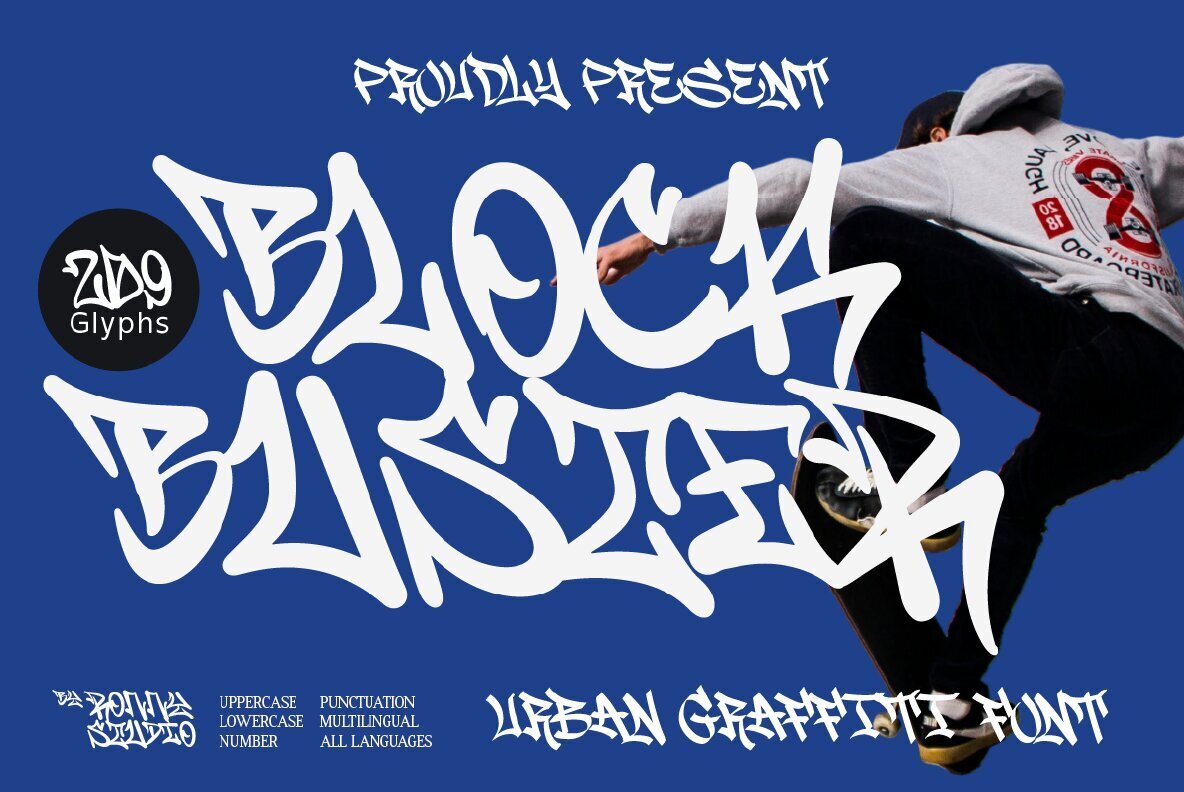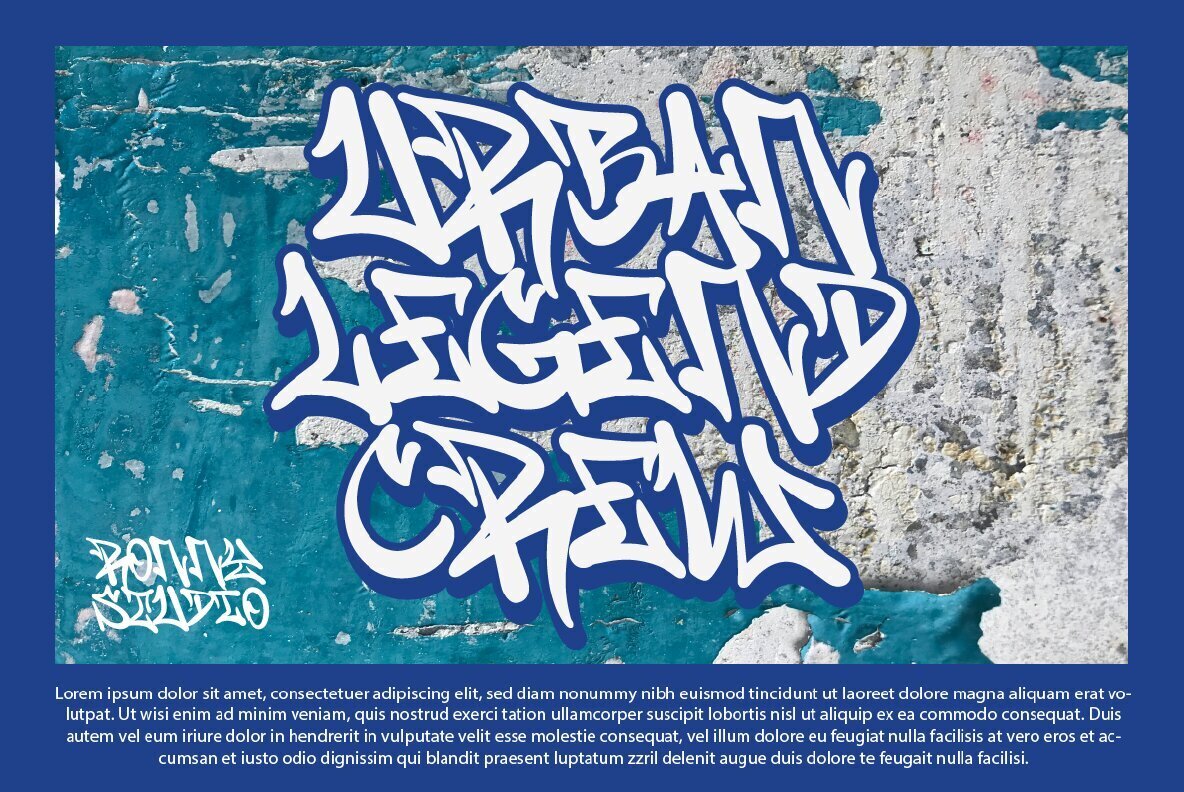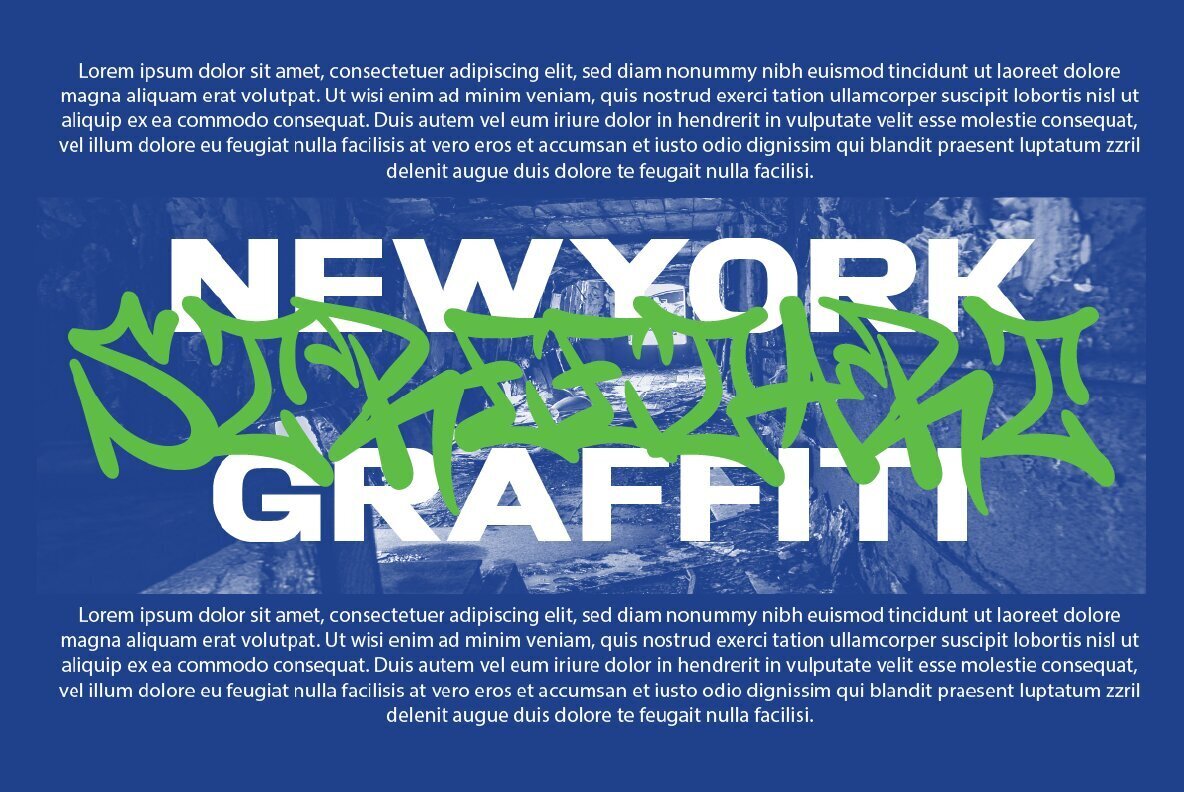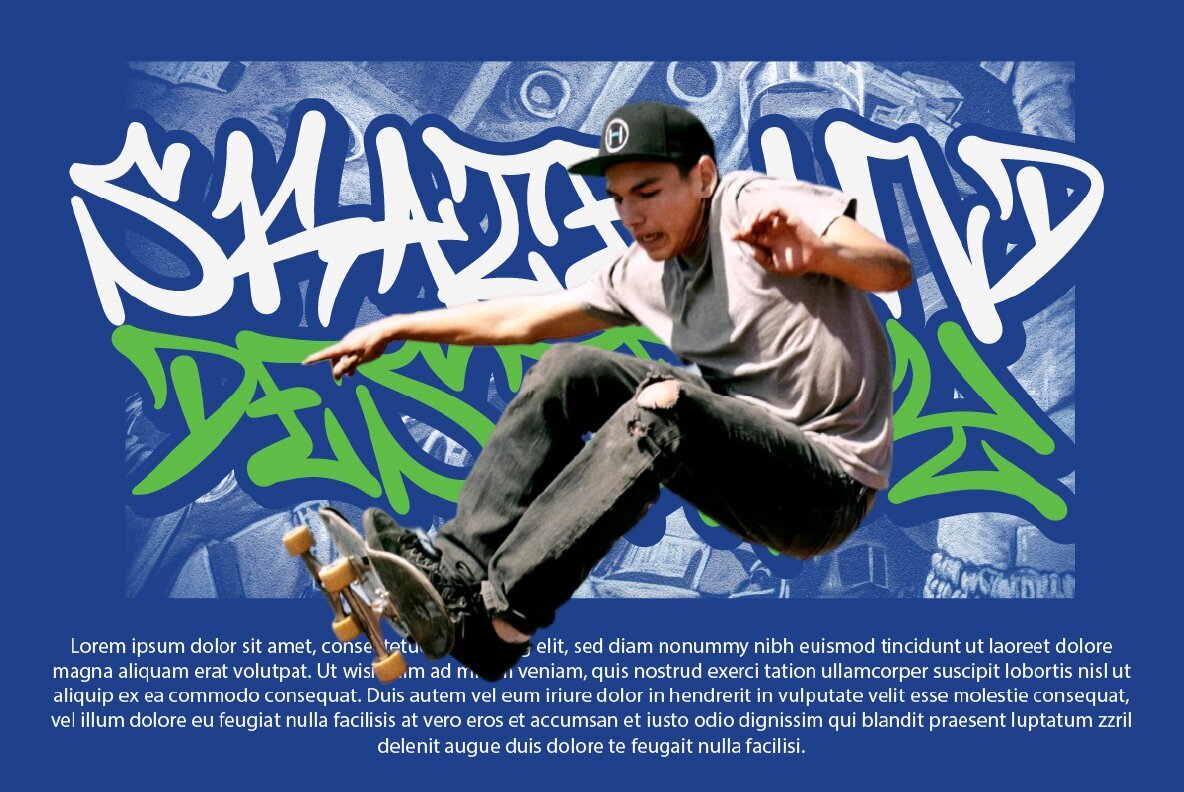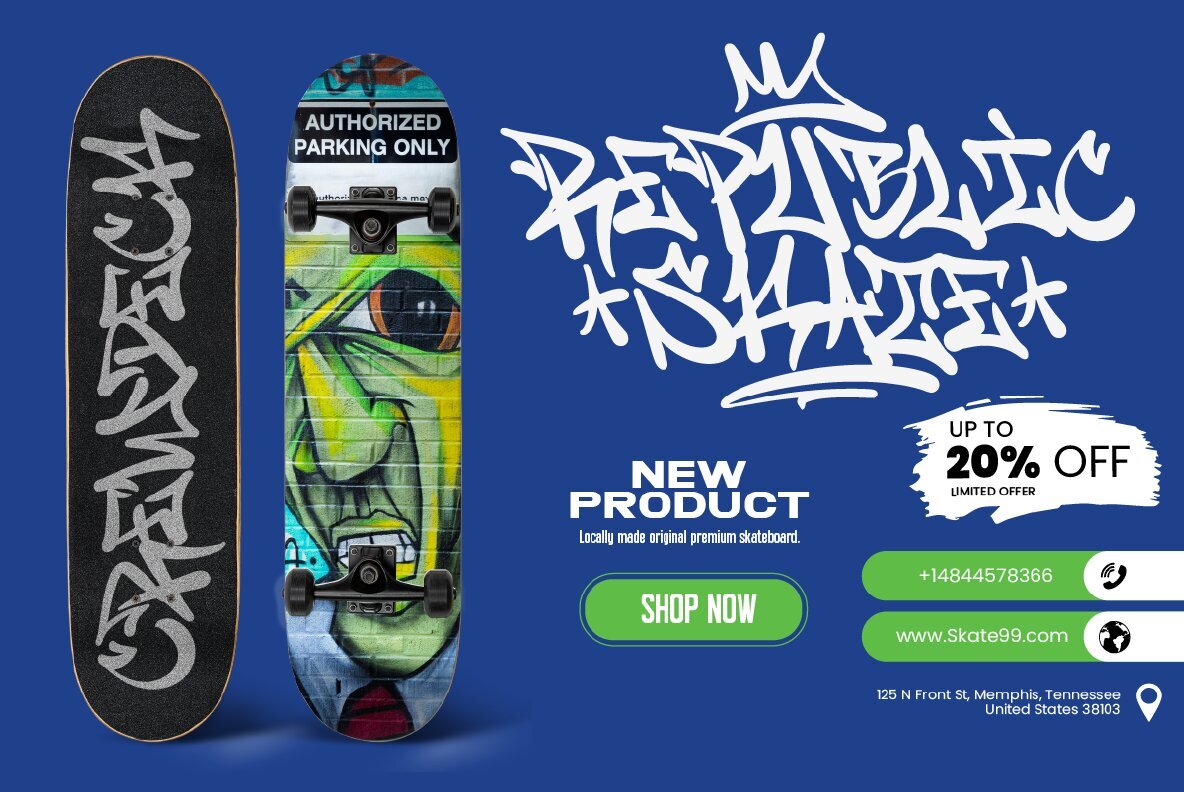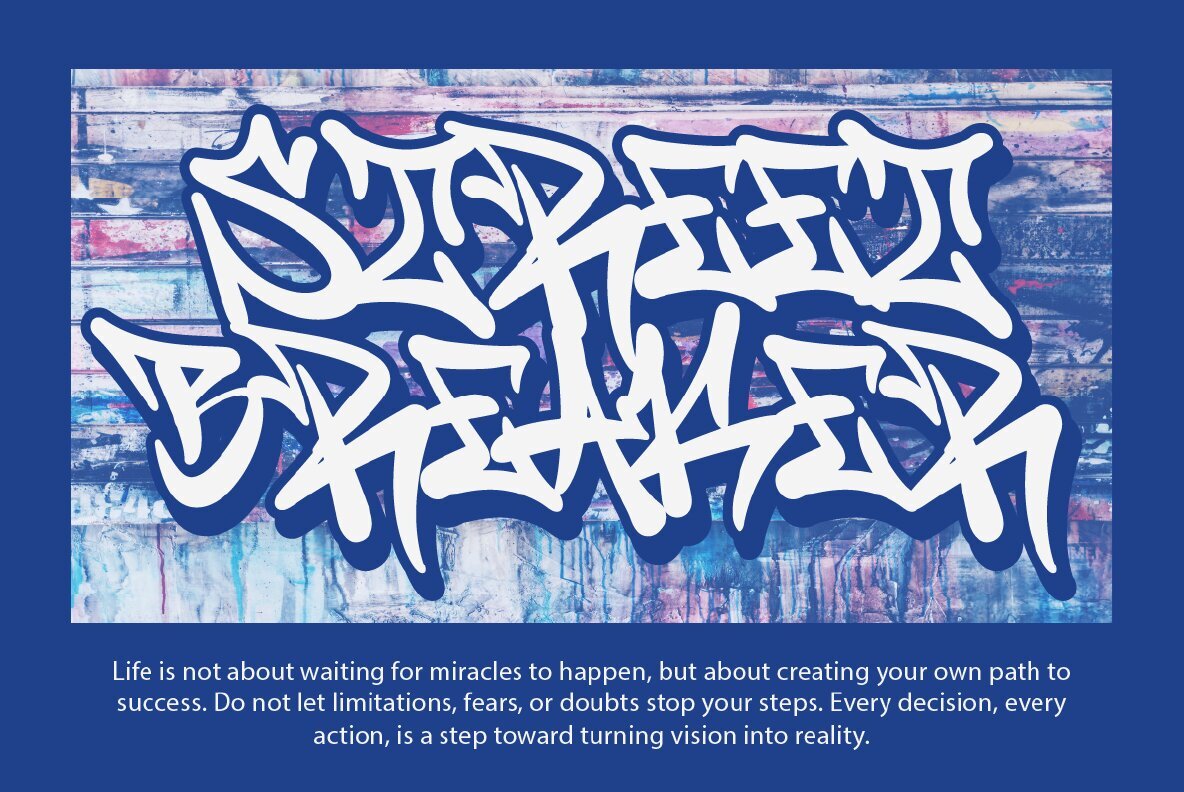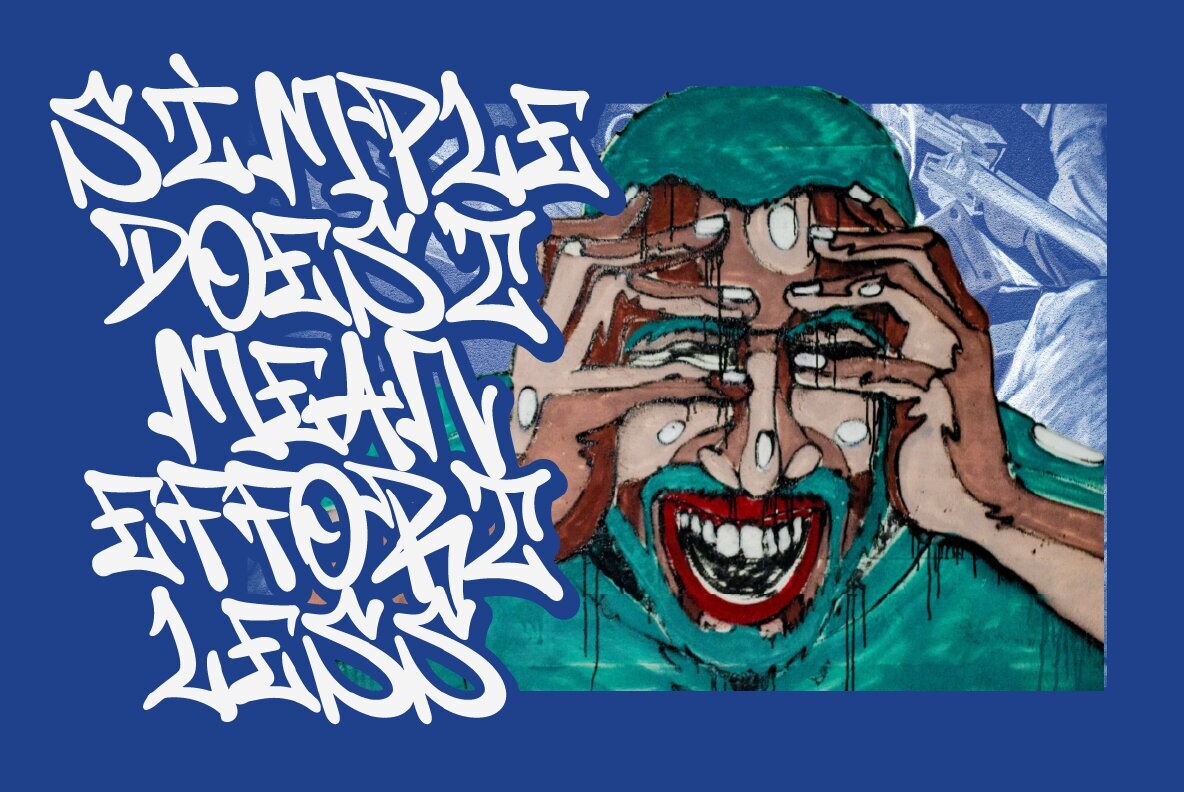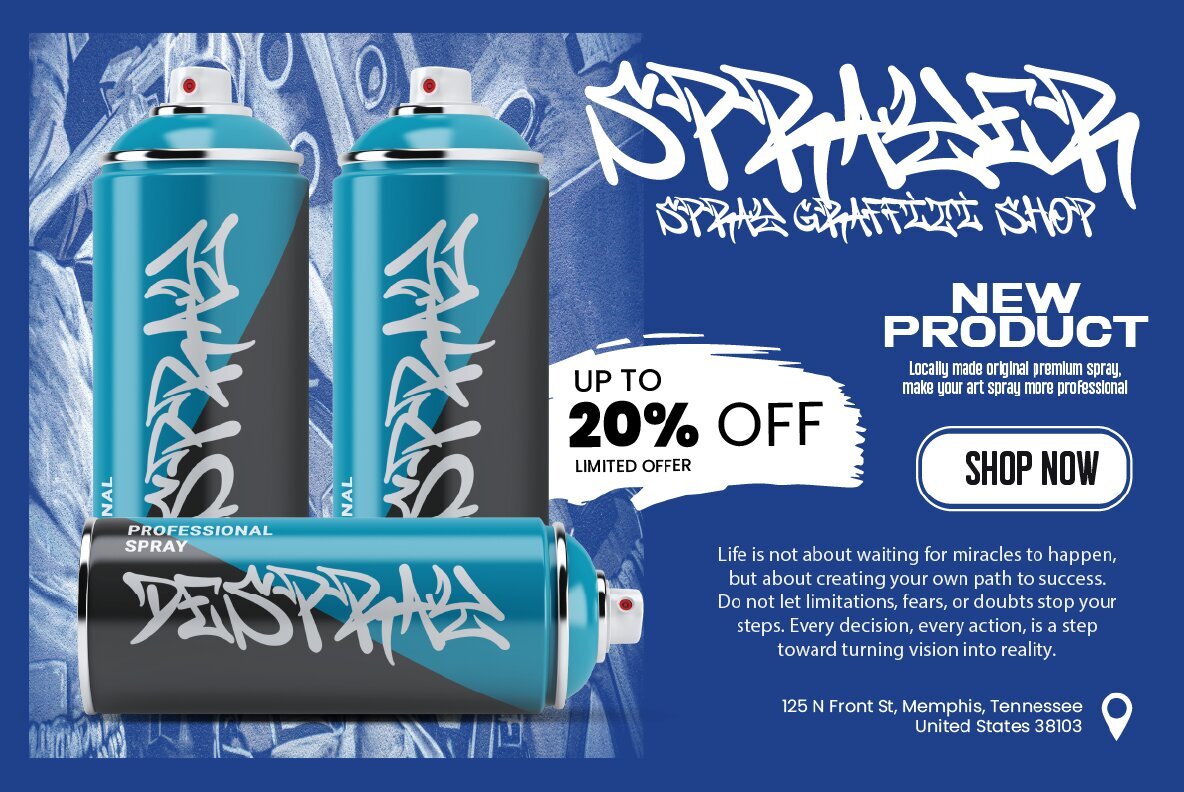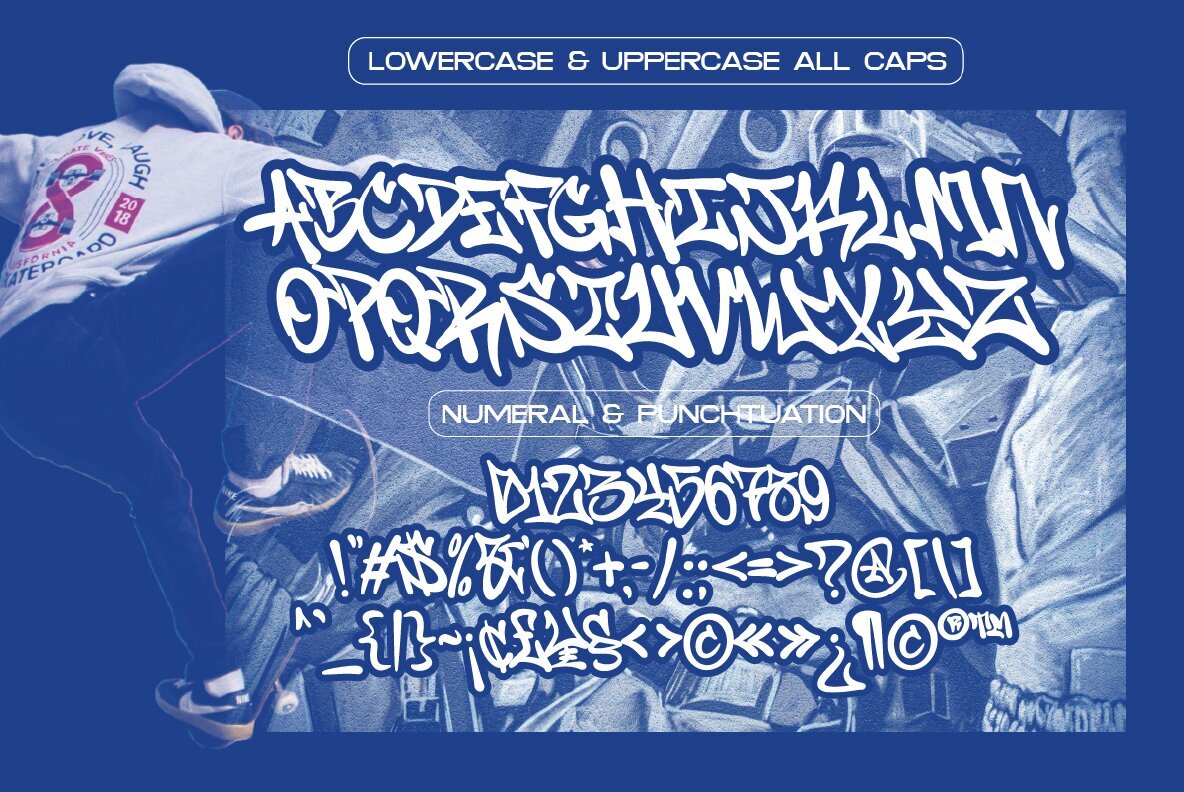
Block Buster Font
Block Buster
Block Buster Ornament
Block Buster is a bold and expressive urban graffiti font, perfect for injecting the raw energy of street art into your designs. Its authentic graffiti-inspired style provides versatility and creativity with a robust character set. Featuring 209 glyphs, it offers both uppercase and lowercase letters, allowing for a wide range of design possibilities.
The font comes equipped with multilingual support, as well as punctuation and numbers, making it a reliable choice for professional projects. Whether you're working on branding, logo design, music posters, skateboard merchandise, album covers, urban events, or distinctive social media content, Block Buster offers the flexibility to stand out.
Ideal for creatives looking to make a statement, Block Buster lets you explore wild expressions and dynamic presentations. Enhance your designs with this unique font that embodies the spirit of the streets.